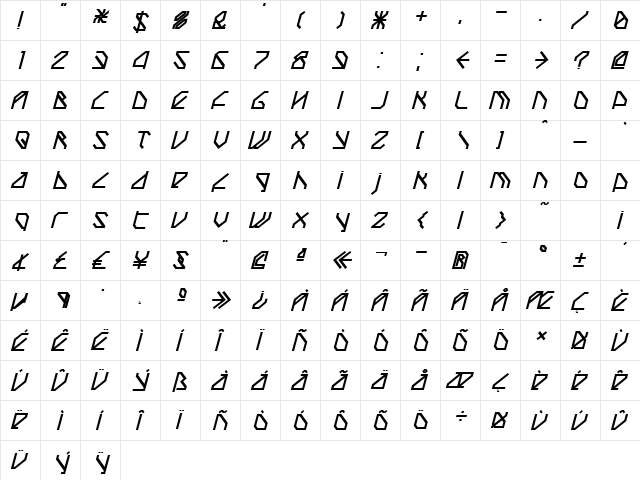
TechstepBold Oblique Regular Font Preview
Design Context for TechstepBold Oblique Typeface
TechstepBold Oblique channels digital-age aesthetics through its sharp, structured letterforms — ideal for brands that want to signal innovation. Its italic angle brings a sense of urgency and motion to the letterforms. The heavy weight commands attention and anchors typographic hierarchies.
Pro Tip: Try TechstepBold Oblique with generous letter-spacing in UI labels and navigation — the geometric forms benefit from room to breathe.